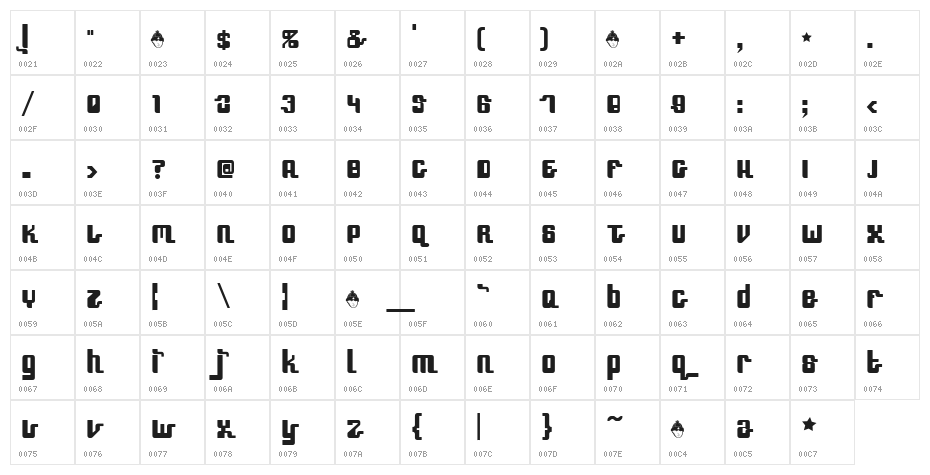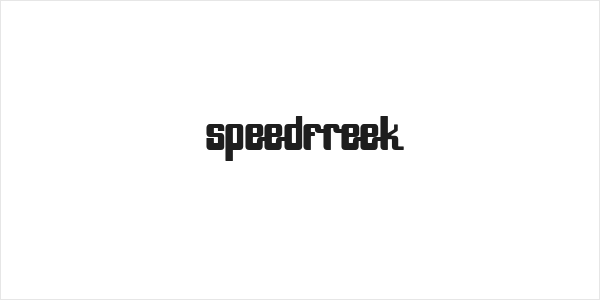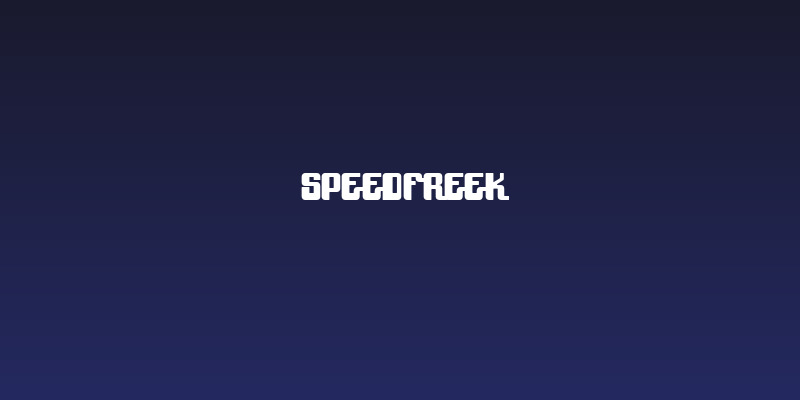
SpeedFreek Font
SpeedFreek Description
This font features a bold and geometric design with a unique, futuristic aesthetic. The characters are constructed with thick, block-like strokes that create a strong visual impact. The uppercase and lowercase letters maintain a consistent width, giving the font a monospaced appearance. The numerals and special characters follow the same bold and structured style, ensuring uniformity across all glyphs. The font's design is reminiscent of digital or sci-fi themes, making it suitable for projects that require a modern and edgy look.
| Proposed Projects | Ideal for sci-fi themed posters, video game graphics, tech branding, and digital media. |